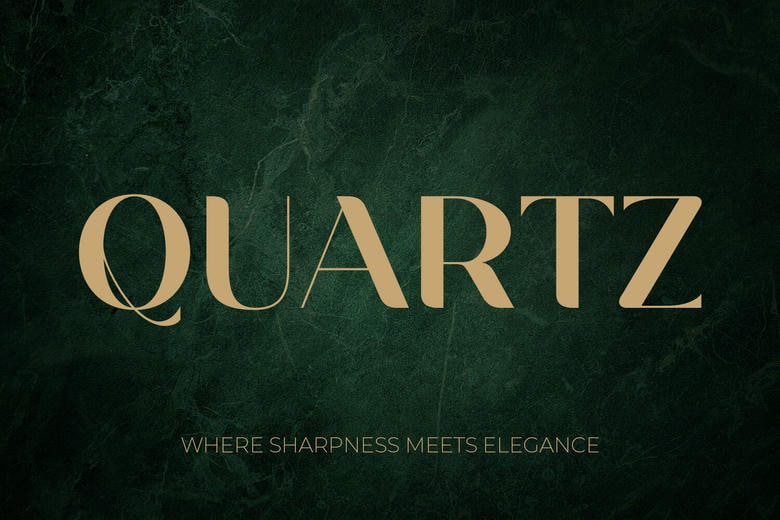
Quartz Font
Quartz is a high-contrast serif, which is a perfect balance between sharp geometrical architecture and elegant and sophisticated curves. Formatted to be most aesthetically appealing, it stands out in big screens and headlines but has a feeling of sophistication and high quality.
It is also a remarkable find in high-end branding, high-end packaging, wedding invitations, cosmetic labels, and high-end corporate identities due to the specialty that the lowercase characters are detailed with.
Quartz Serif Font